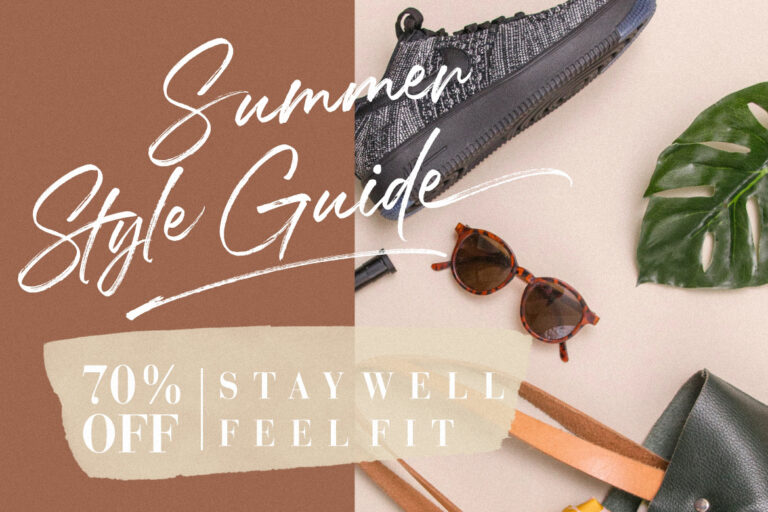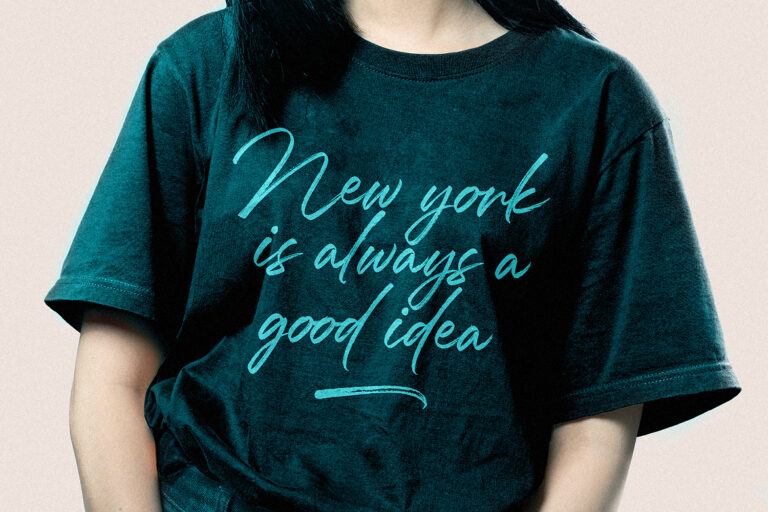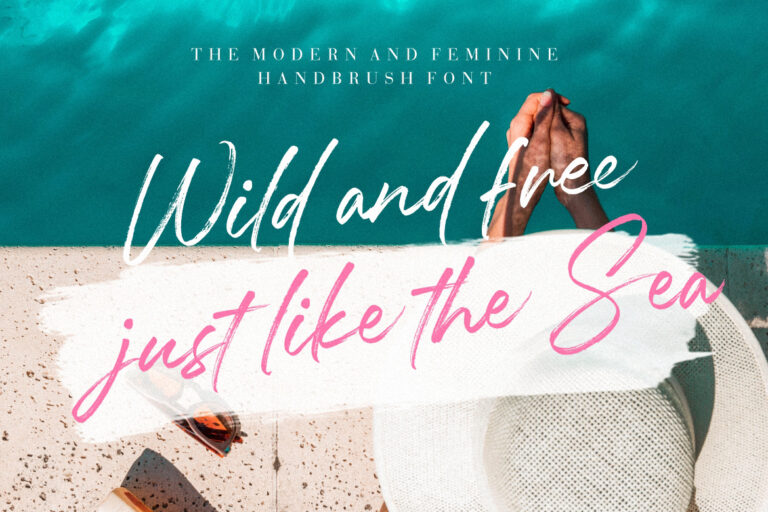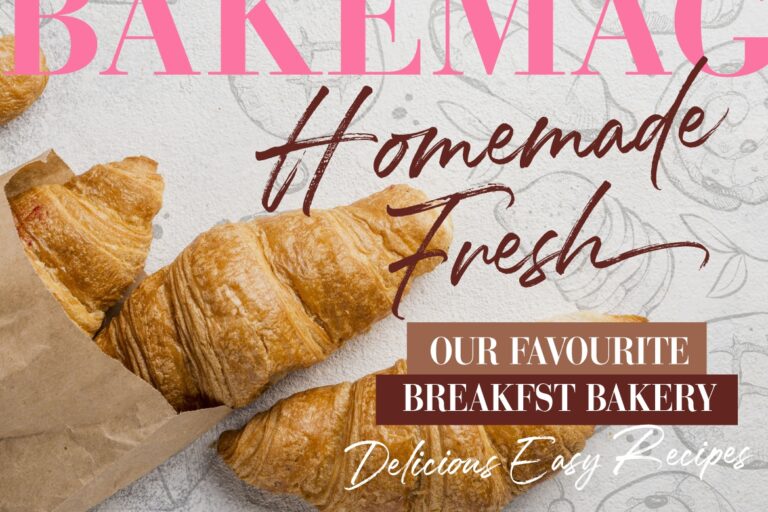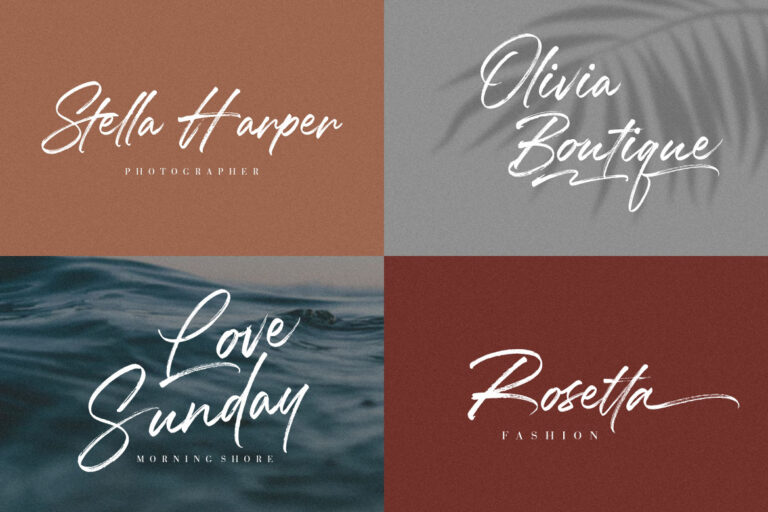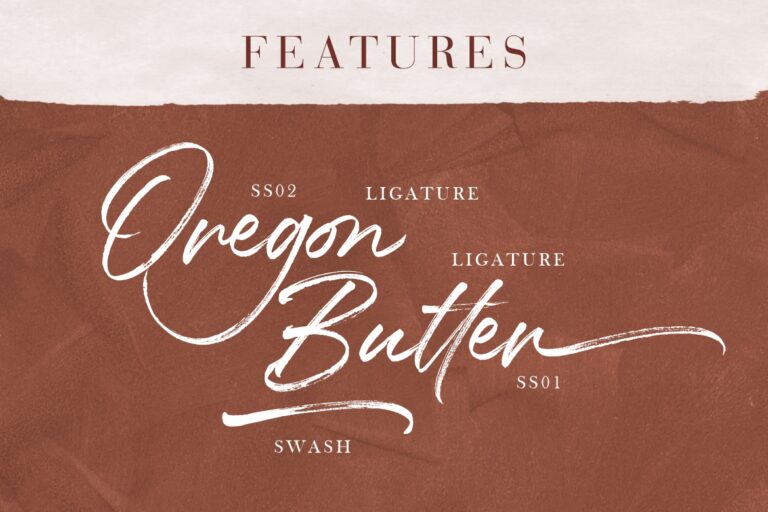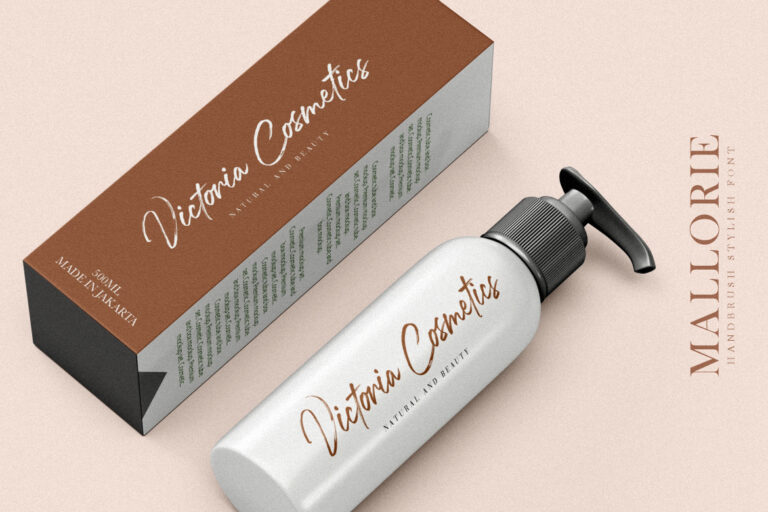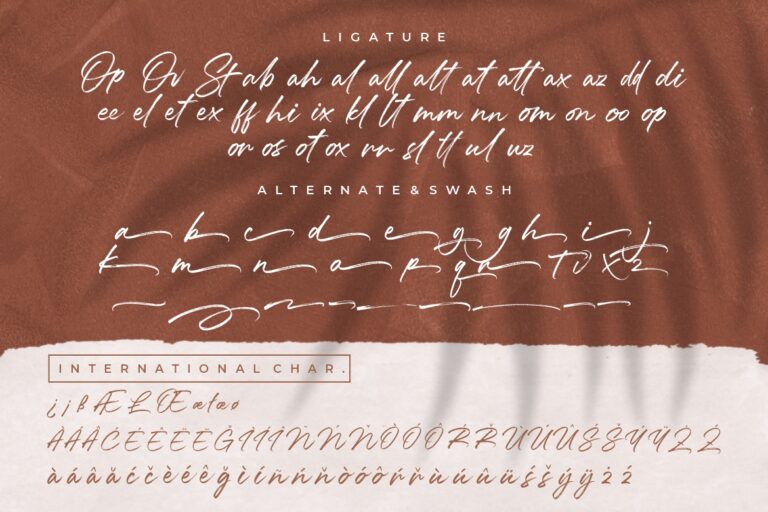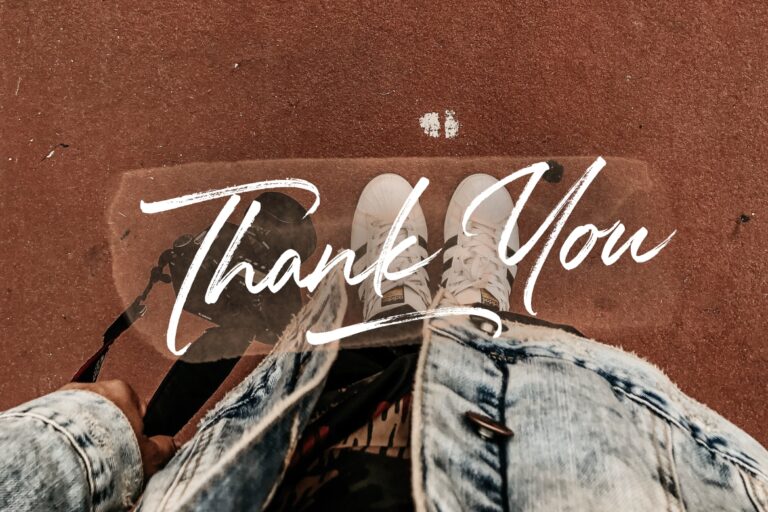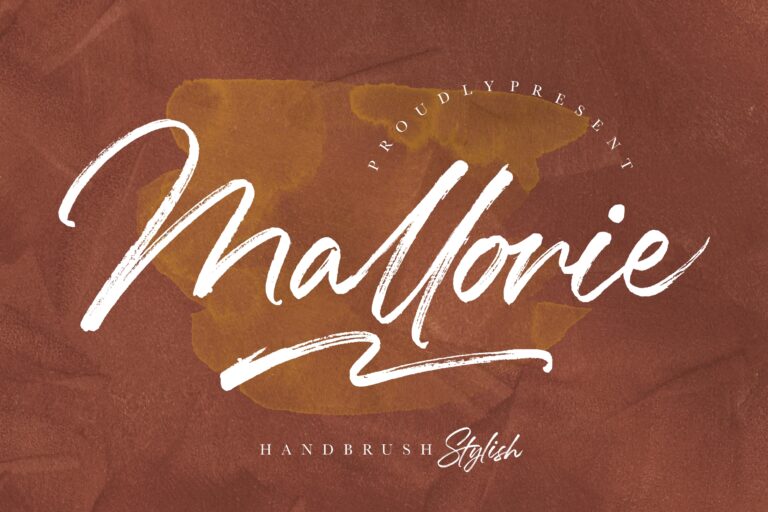
Mallorie a handbrush stylish font with natural movement brush looks elegant and catchy and perfect for your latest project.projects that need handwriting taste.
Mallorie would perfect for photography, watermark, social media posts, advertisements, logos & branding, invitation, product designs, label, stationery, wedding designs, product packaging, special events or anything that need handwriting taste.
- Ligature, Alternate & Swashes
Mallorie Handbrush Stylish